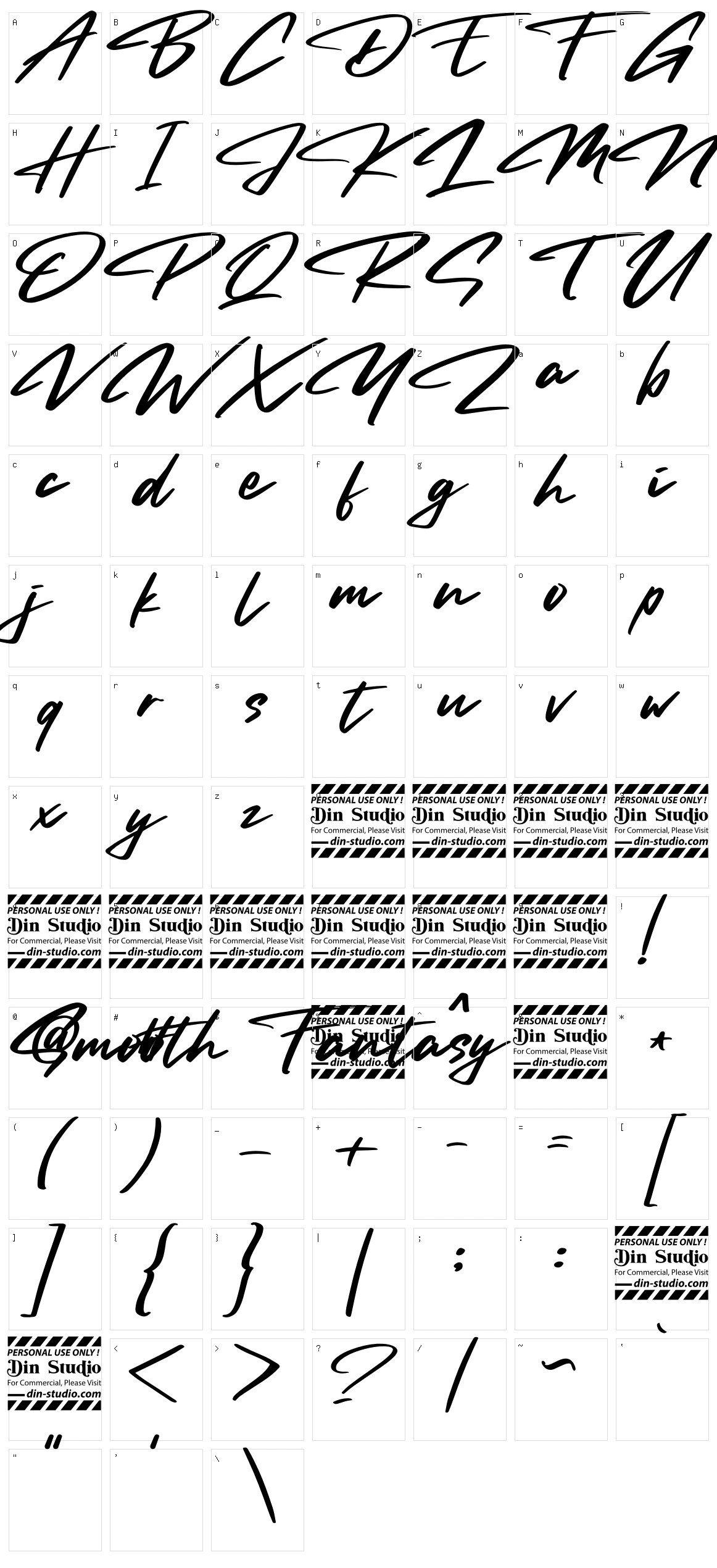
The free font Smooth Fantasy is carefully designed by Din Studio, showcasing a thoughtful balance of creativity and usability and falls under the Script font style. When you download the ZIP file, it contains only 883.91 KB of font files, making it lightweight and quick to download. Please review the license details below to understand permitted usage and distribution rights. If license information is not available, we recommend using this font for personal projects only or contacting the author directly for commercial usage permissions.